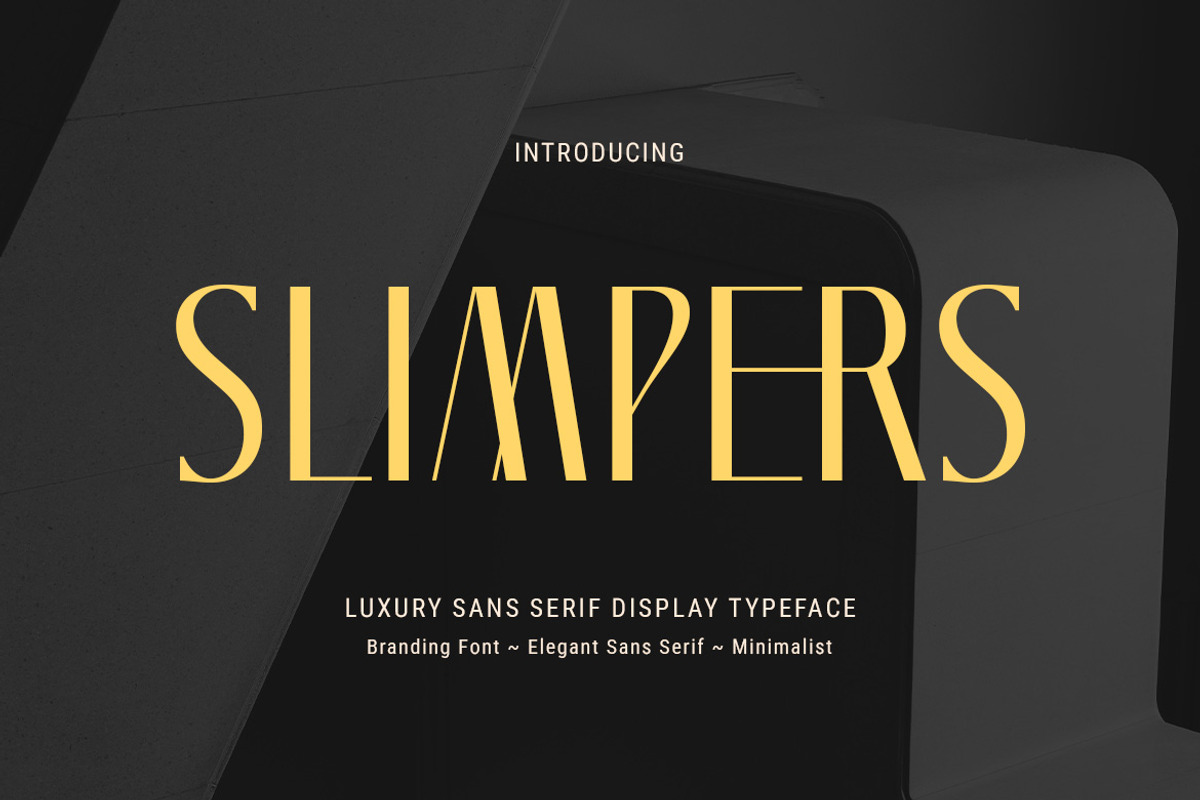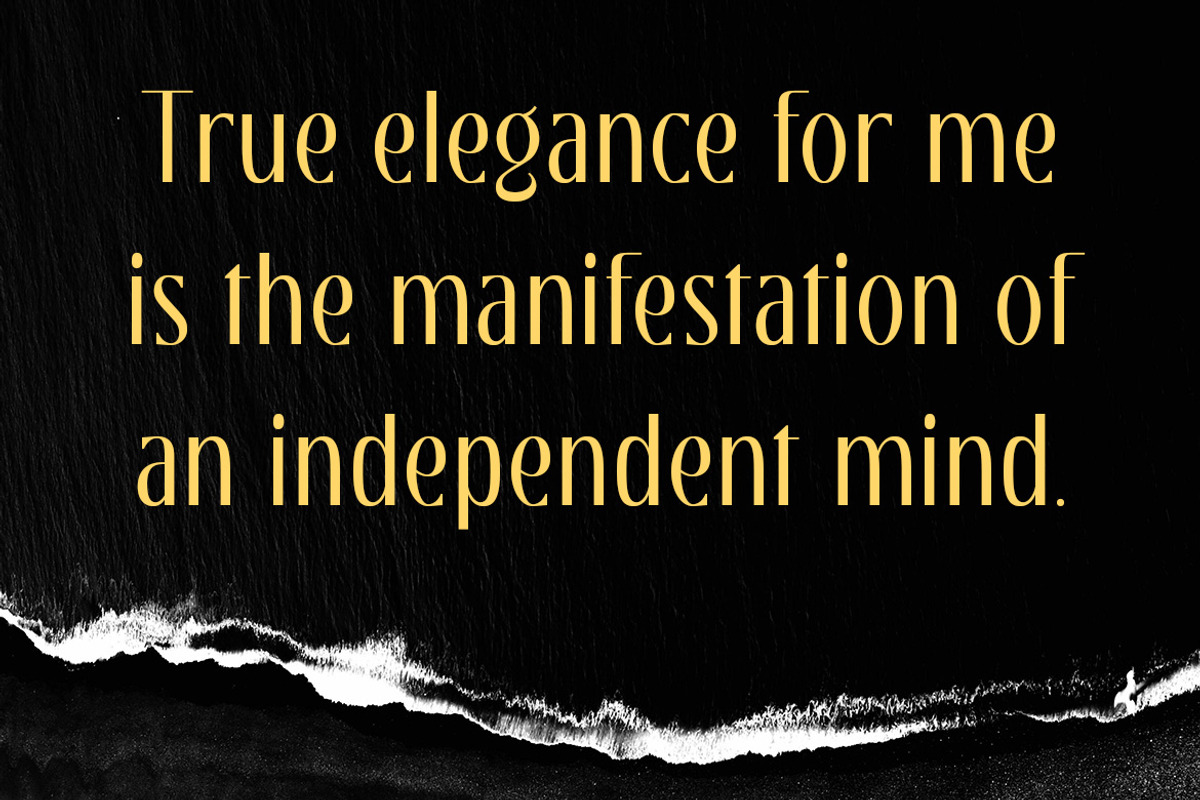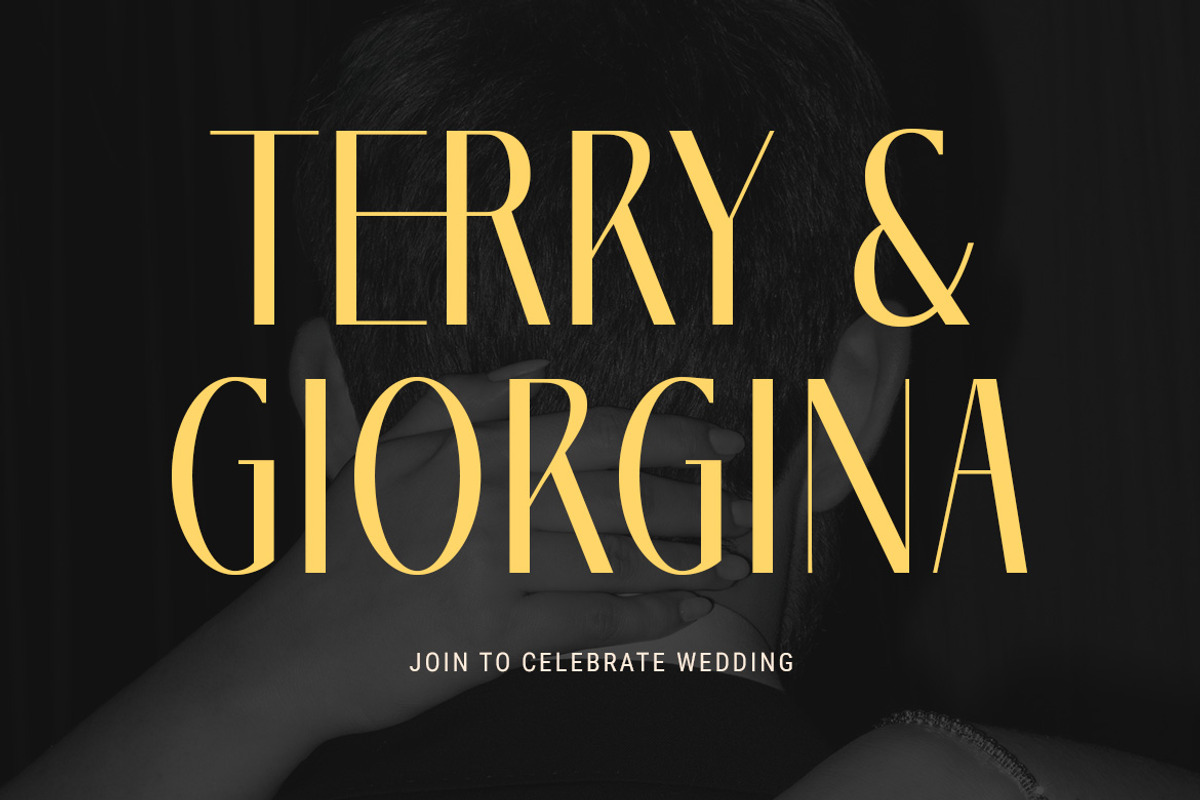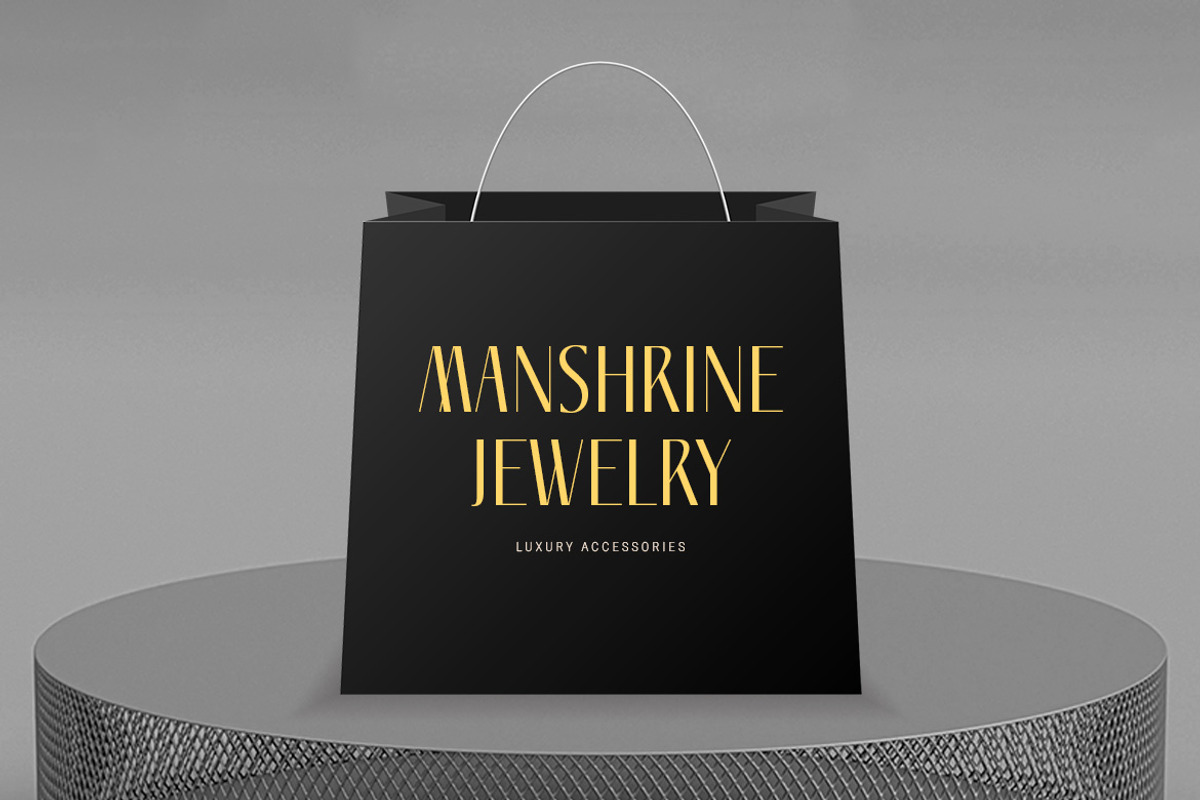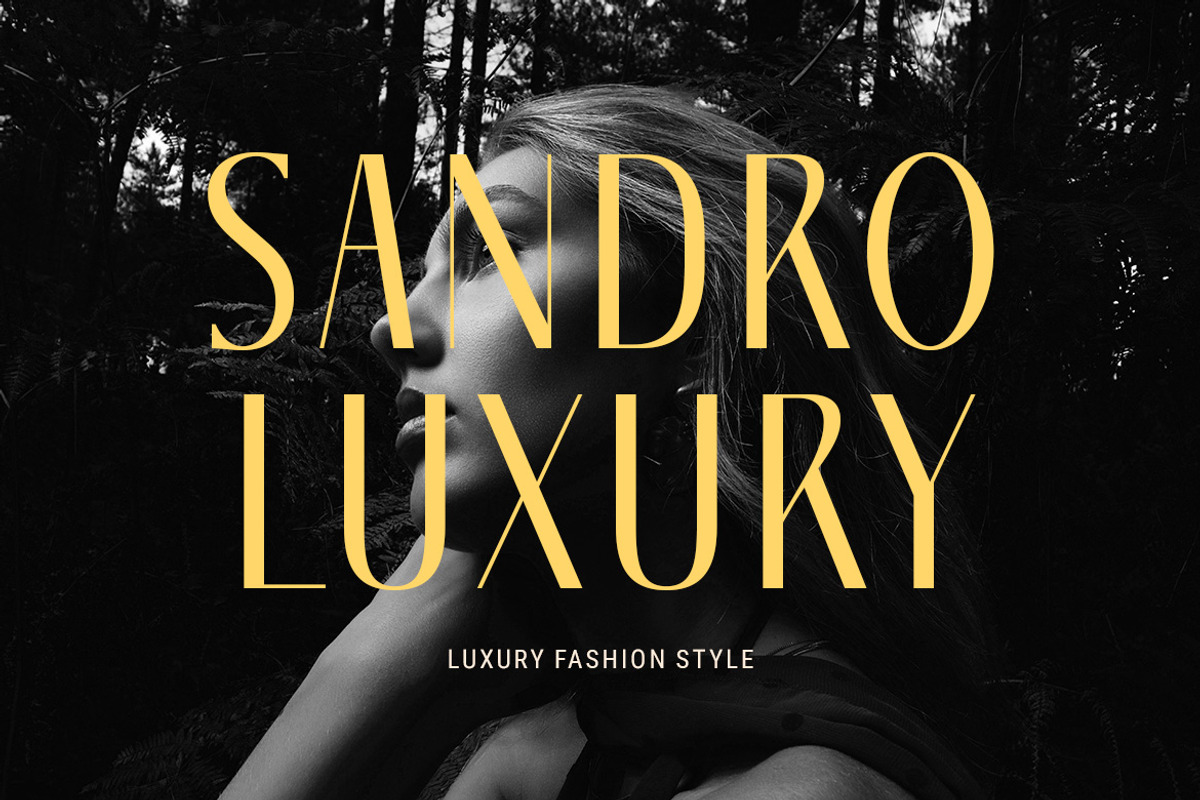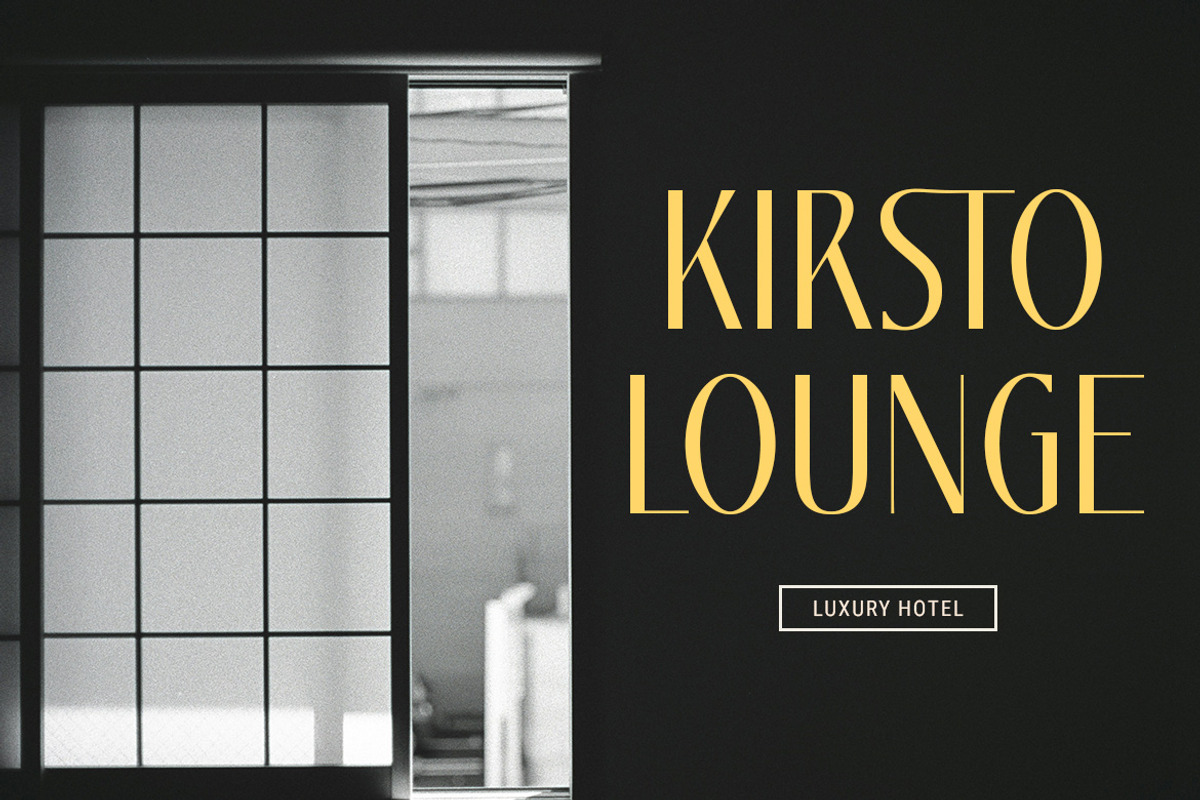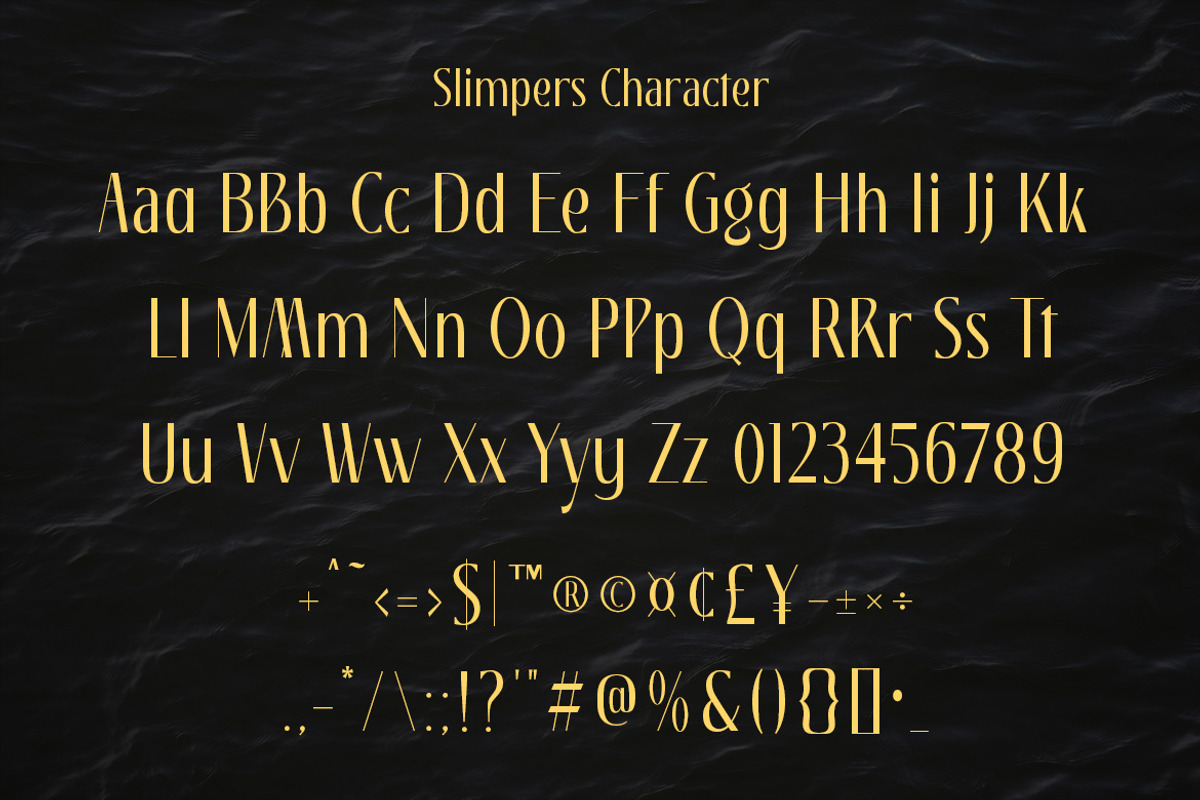
Slimpers – Luxury Font
Slimpers is a luxury sans serif display typeface designed to showcase elegance, sophistication, and modern minimalism. With its tall letterforms, stylish cuts, and refined proportions, this font is perfect for high-end branding, fashion magazines, luxury packaging, wedding invitations, jewelry design, and editorial layouts. Slimpers brings a timeless yet contemporary look that enhances any creative project, making your typography feel exclusive and memorable. Whether you are working on a bold headline, a sleek logo, or refined body text, Slimpers delivers a flawless balance between elegance and clarity.
* Uppercase Letters
* Numbers & Punctuation
* Ligature & Alternate Character
* Unique Hand-Drawn Style